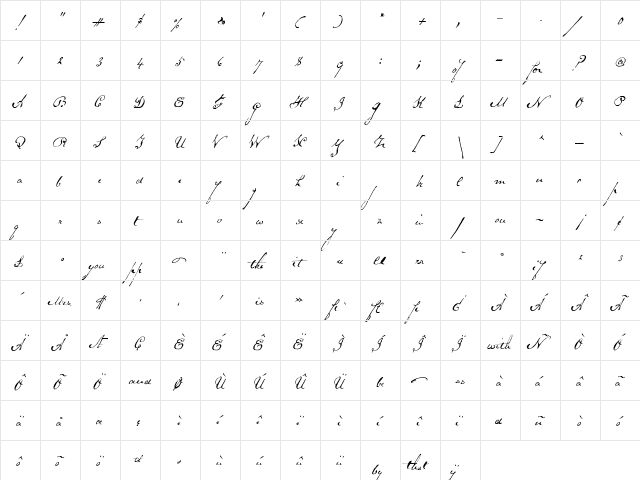
SchoonerScript Regular
| Foundry | \ by Three Islands Press, Rockland ME |
Design Context for SchoonerScript Typeface
SchoonerScript flows with the natural rhythm of handwritten lettering, making it ideal for designs that call for warmth and personal expression.
Font Pairing: Combine SchoonerScript with a simple geometric sans for maximum contrast — the tension between flowing curves and clean structure is a classic typographic pairing.
Pro Tip: Use SchoonerScript for short runs of text — names, titles, or taglines. Extended body copy in script faces tires the eye quickly.